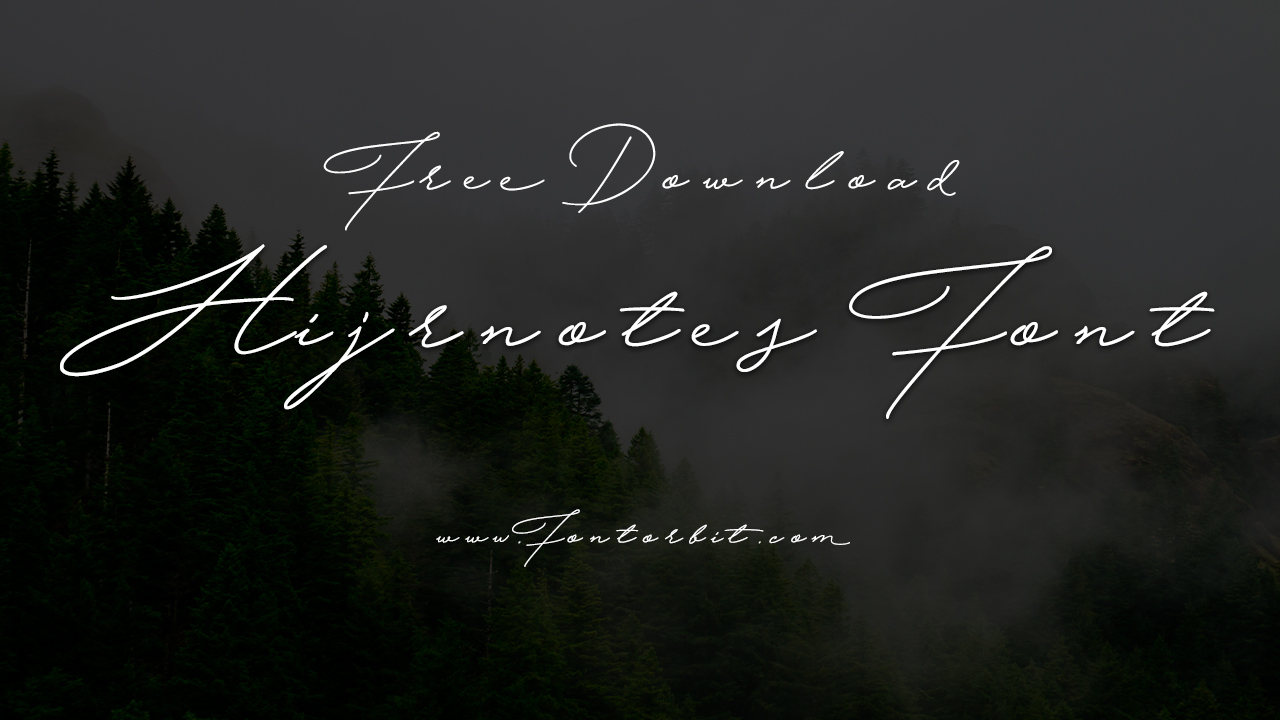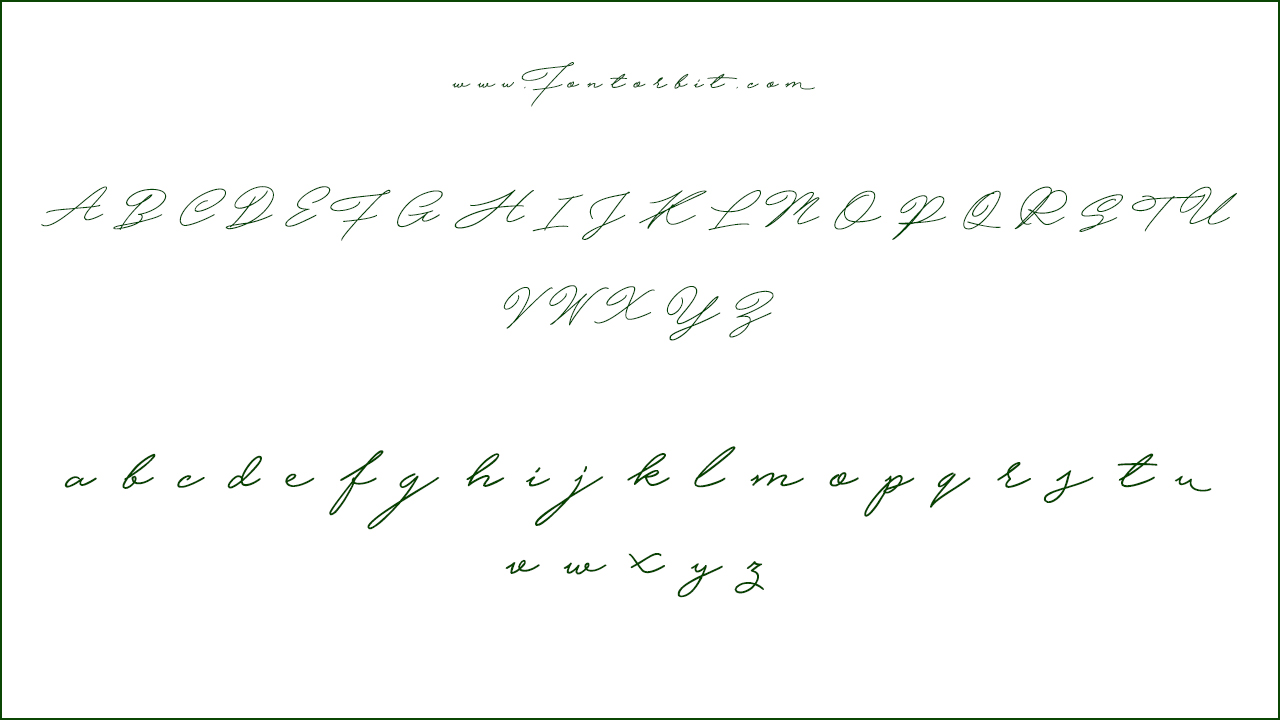
Hijrnotes font is a distinctive handwritten script font designed by Hendra Pratama and published by Mans Greback. Introduced to the design community in 2016, Hijrnotes quickly gained popularity for its elegant yet casual aesthetic.
With its monoline style, large uppercase, and relatively small lowercase characters, it provides a sophisticated yet readable option for various creative projects, such as autographs, name cards, neon signs, and quote typography posters.
Hijrnotes belongs to the script and handwritten category, embodying the natural flow of a quick pen stroke. Its unique design blends a spontaneous, personal touch with a sleek, modern feel. While Hijrnotes primarily comes in one main style, its versatility and ease of use make it suitable for various design applications.
It includes a comprehensive character set, featuring uppercase and lowercase letters, numbers, basic punctuation, and a selection of special characters, ensuring its compatibility across different design platforms. The font family includes:
Hijrnotes, with its clean, handwritten feel, is ideal for projects that benefit from a personal or creative touch. Its distinctively large uppercase letters make it perfect for headlines, while the smaller lowercase characters maintain readability. Here are some popular applications of the Hijrnotes font:
- Autographs
- Name Cards
- Neon Signs
- Quote Typography Posters
- Flyers
Hijrnotes is a versatile and sophisticated handwritten script font that fits perfectly in various design contexts. Whether used for digital or print media, this font provides the personal touch and elegance needed to bring creative projects to life. Its unique character set and monoline design make it a go-to choice for designers aiming for a modern and professional look, with a personal touch.